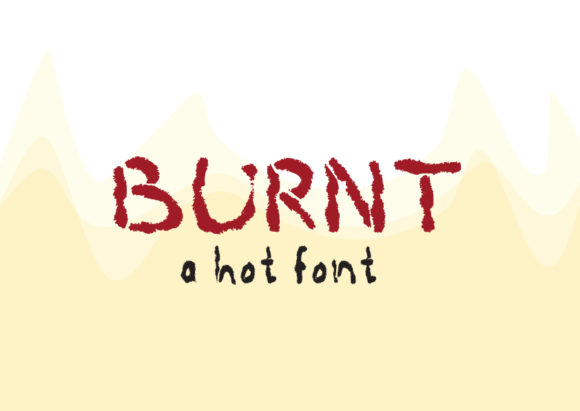
Journey through a mesmerizing world of visual appeal with Burnt, an ingenious display font family that ignites a fiery boldness into your creative endeavors. Created by the visionary masterminds at GraphcisBam Fonts, Burnt is a font that radiates confidence, exhuming an otherworldly sophistication, and an untameable spirit that captivates the eyes with its enthrallment.
Dive into the alluring inferno of Burnt, where letters blaze with a fervent heat, reminiscent of smoldering embers and crackling campfires under starry night. Each character, a dance of sparks, embodies a mystique that captivates and enthralls. Engage your audience with the fiery passion of Burnt, and watch as your words set their imaginations ablaze.
In this mesmerizing collection of digital characters, you'll find a myriad of stylistic alternates, swashes, and captivating ligatures that elevate your designs to the celestial echelon. Unleash your inner artist and forge captivating usernames for Instagram that sizzle with individuality, making a statement that sizzles with uniqueness. Unleash your inner artist and illuminate your projects with Burnt, the blazing inferno that ignites your creative soul.